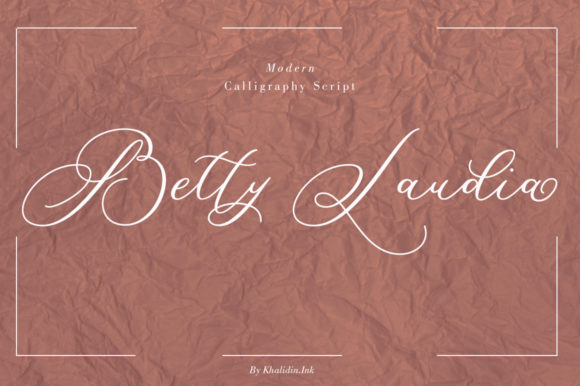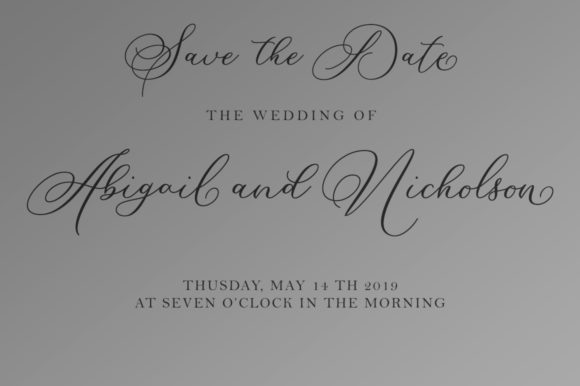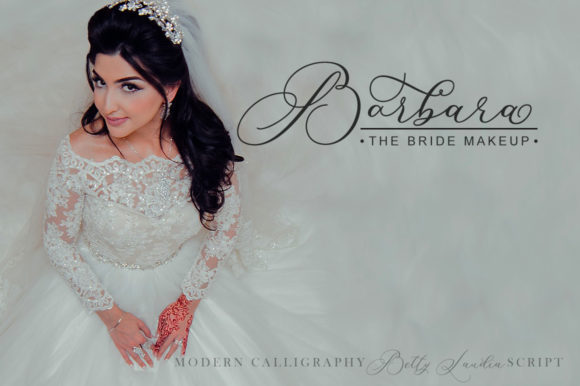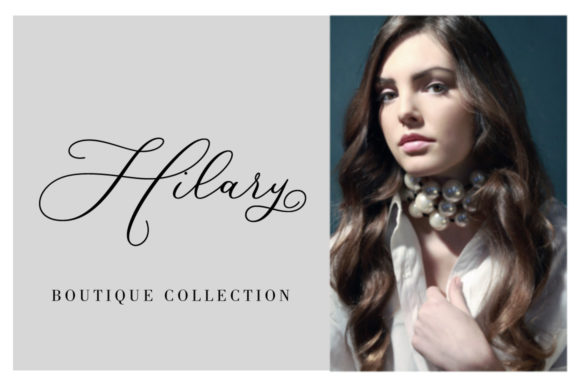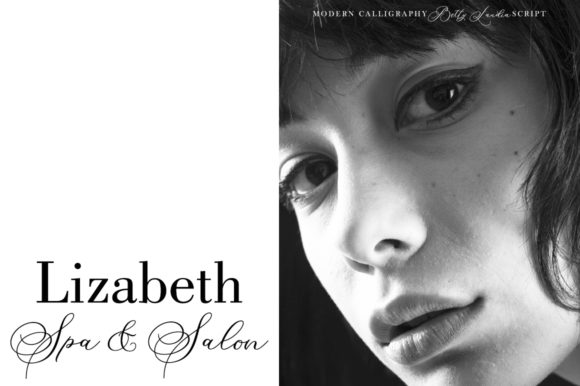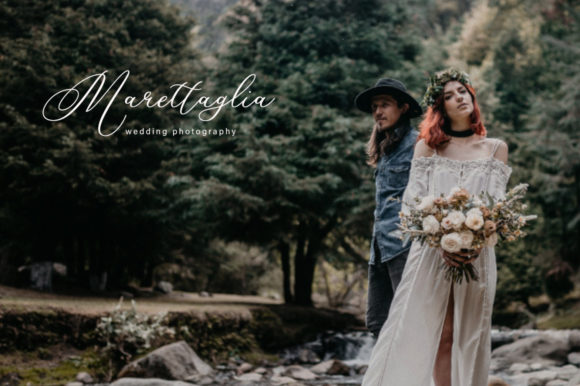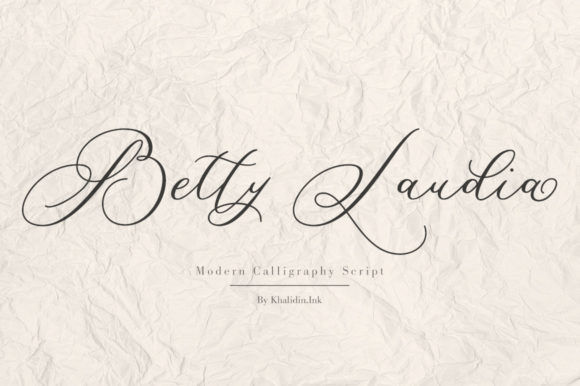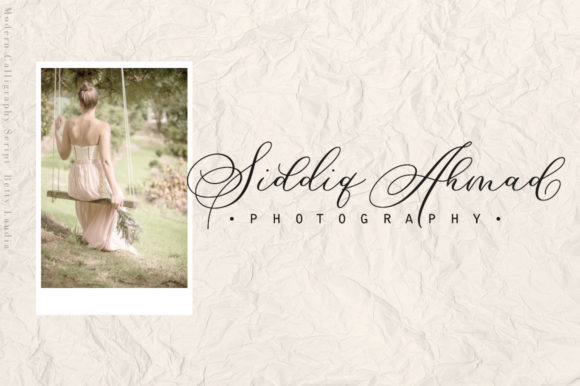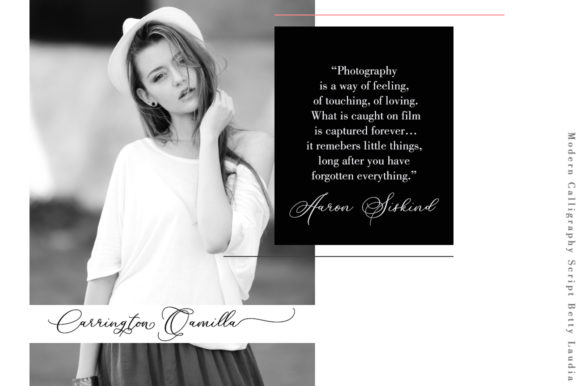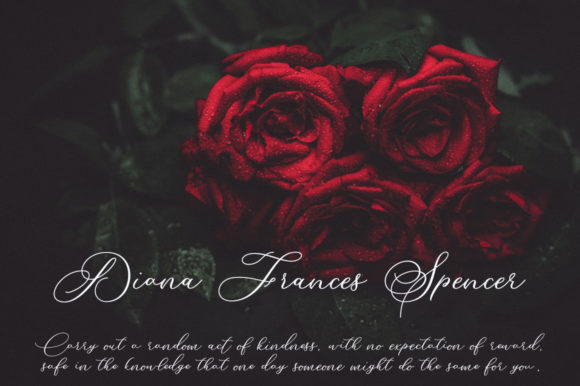
Betty Laudia Font
About Betty Laudia Font
The Betty Laudia is a modern Calligraphy script font. It has an irregular baseline and dancing characters which can be used to give your design an elegant feel. It’s perfect for feminine, elegant, and luxurious designs.
It can be used for logos, wedding invitations, titles, signatures, t-shirts, letterheads, signboards, labels, posters and much more!